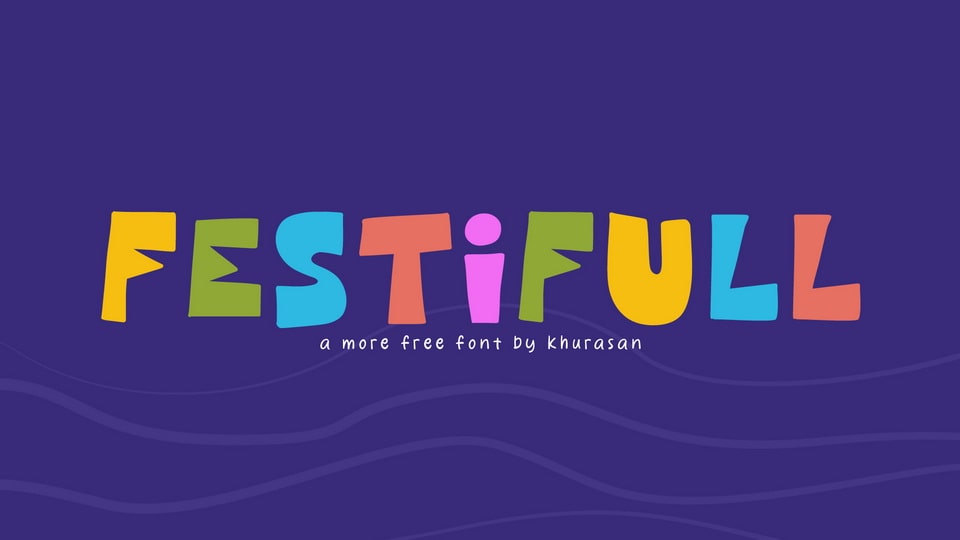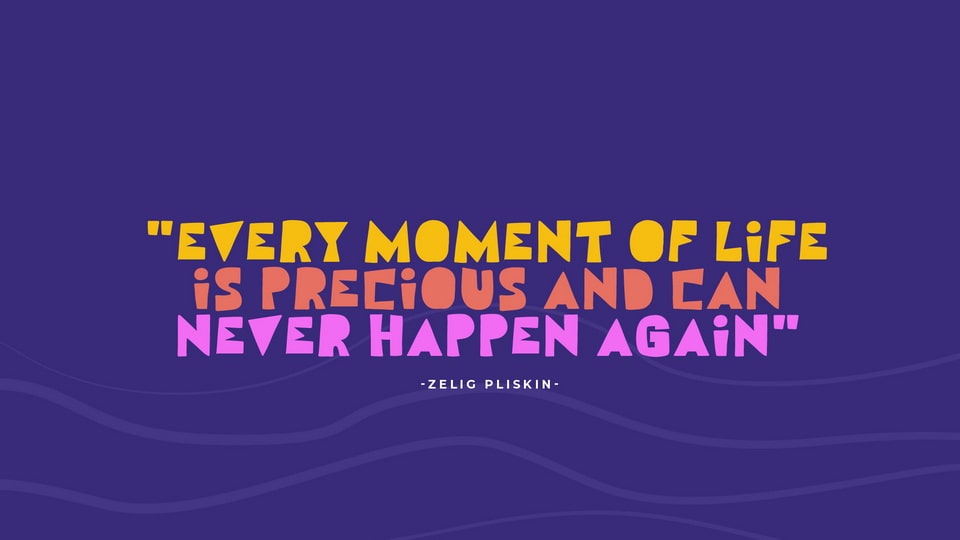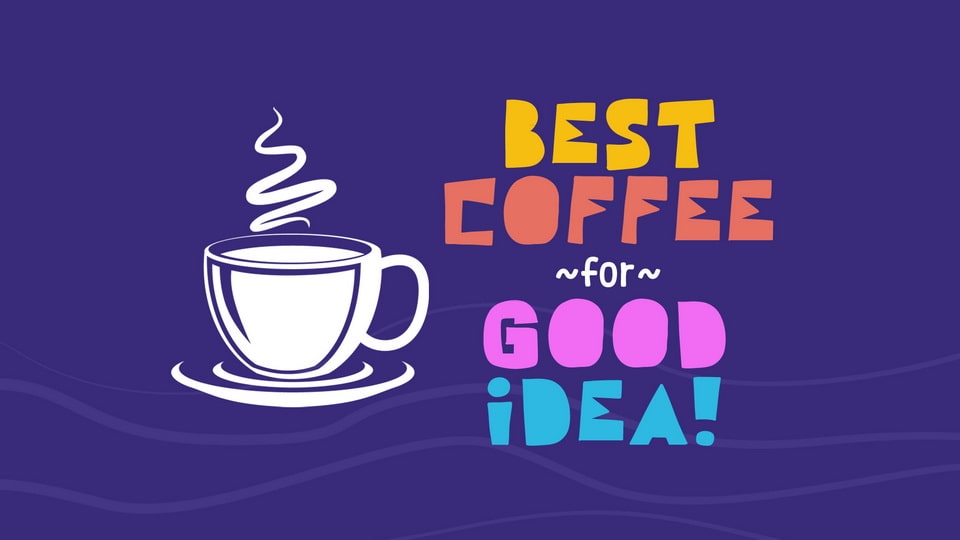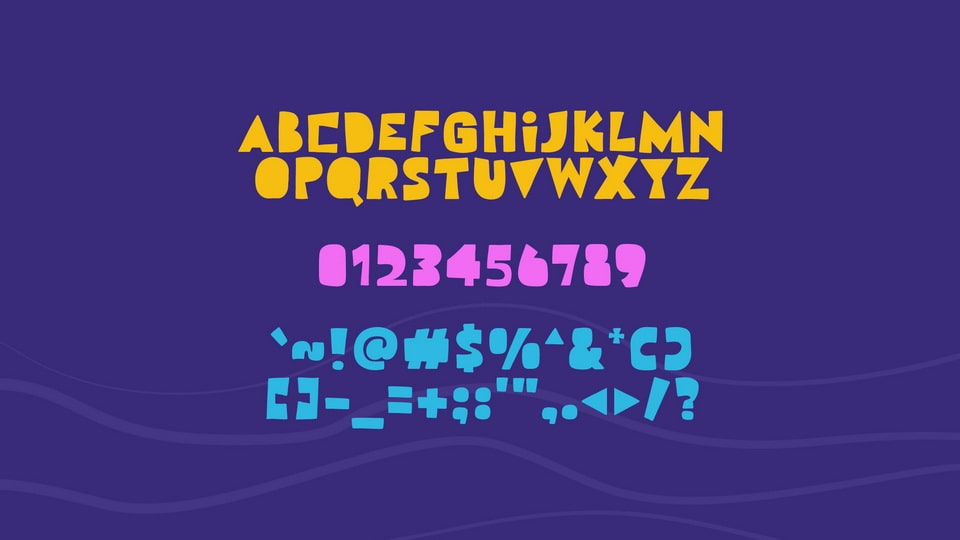
Festiful is a playful cartoon font that brings the party to your designs. This font is all about creating designs that capture the essence of a lively carnival, a colorful parade, or a fun-filled street festival.
Whether you’re designing event posters, cheerful banners, or branding materials that need to convey a festive atmosphere, Festiful font adds a burst of celebratory character and a sense of playful revelry to every letter.